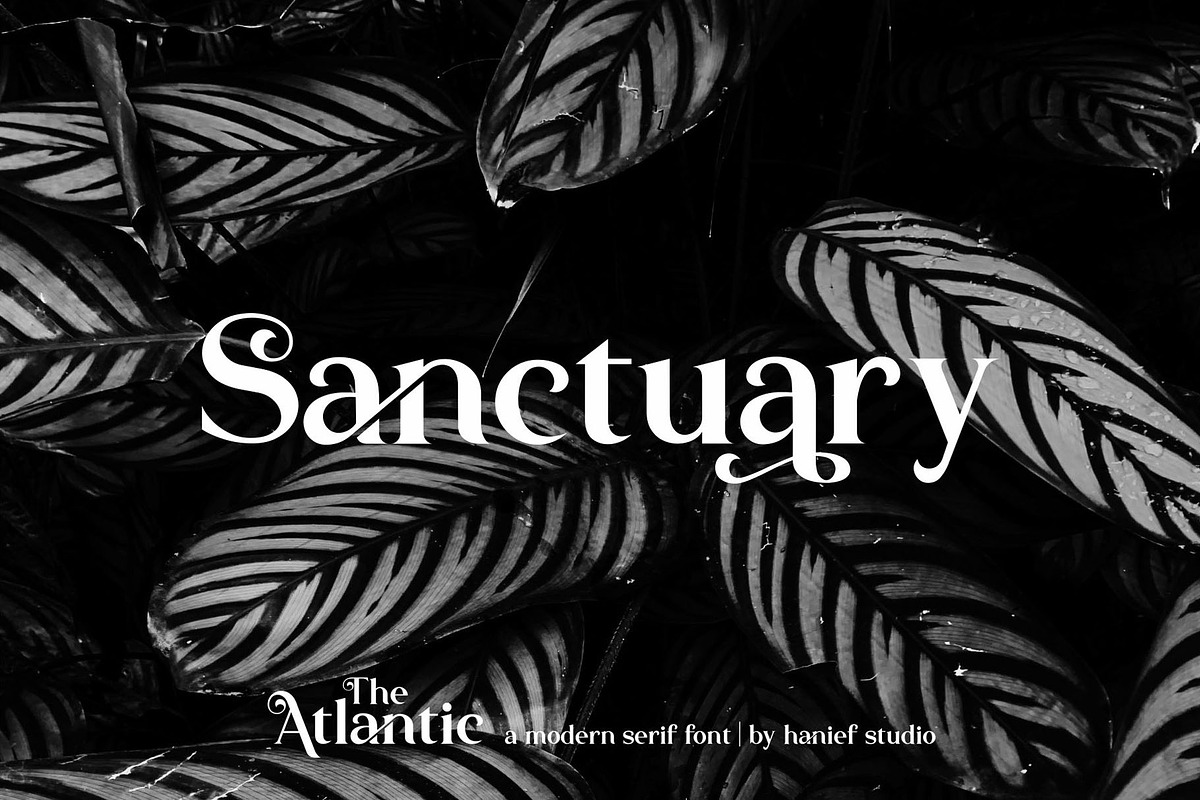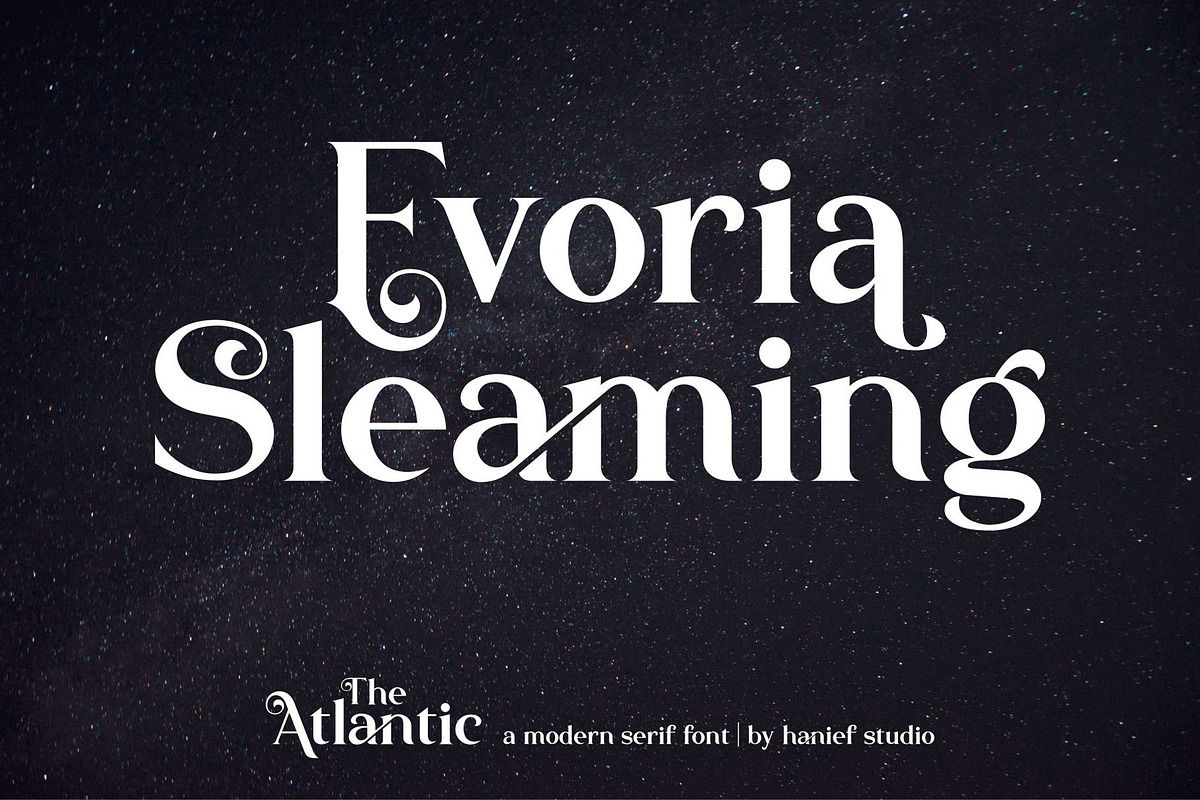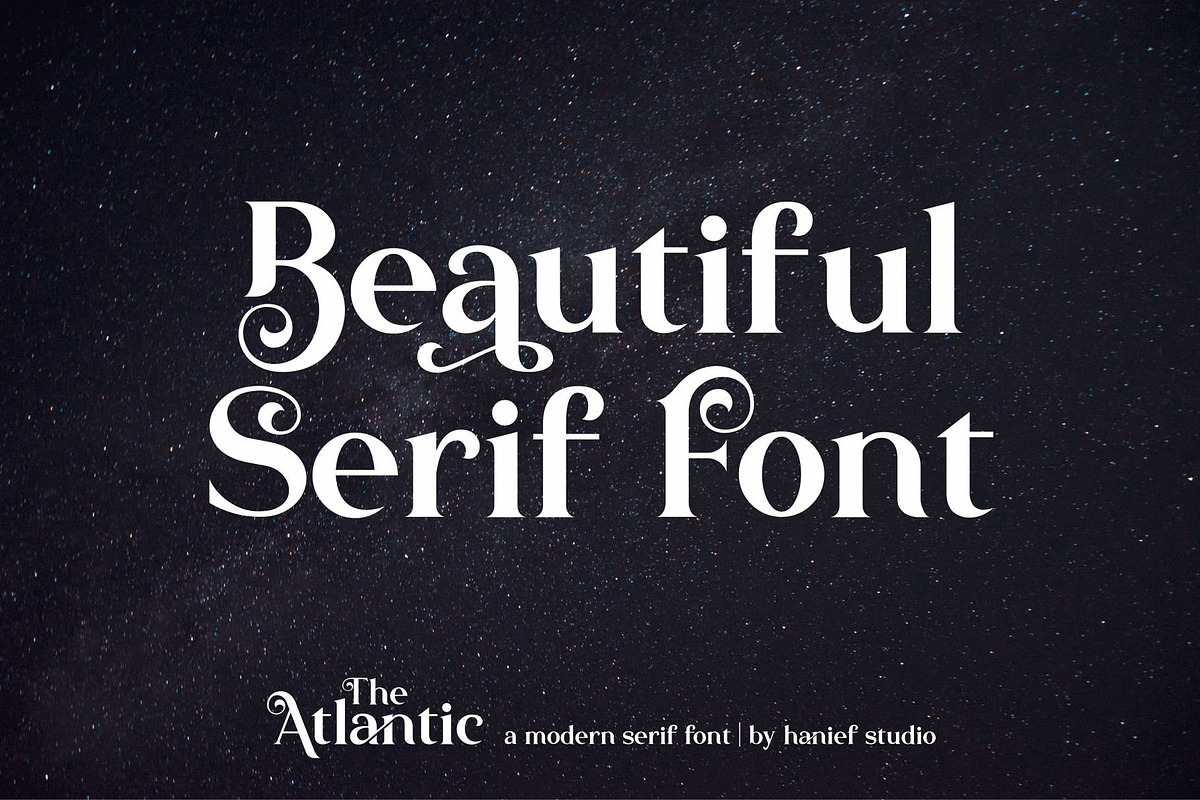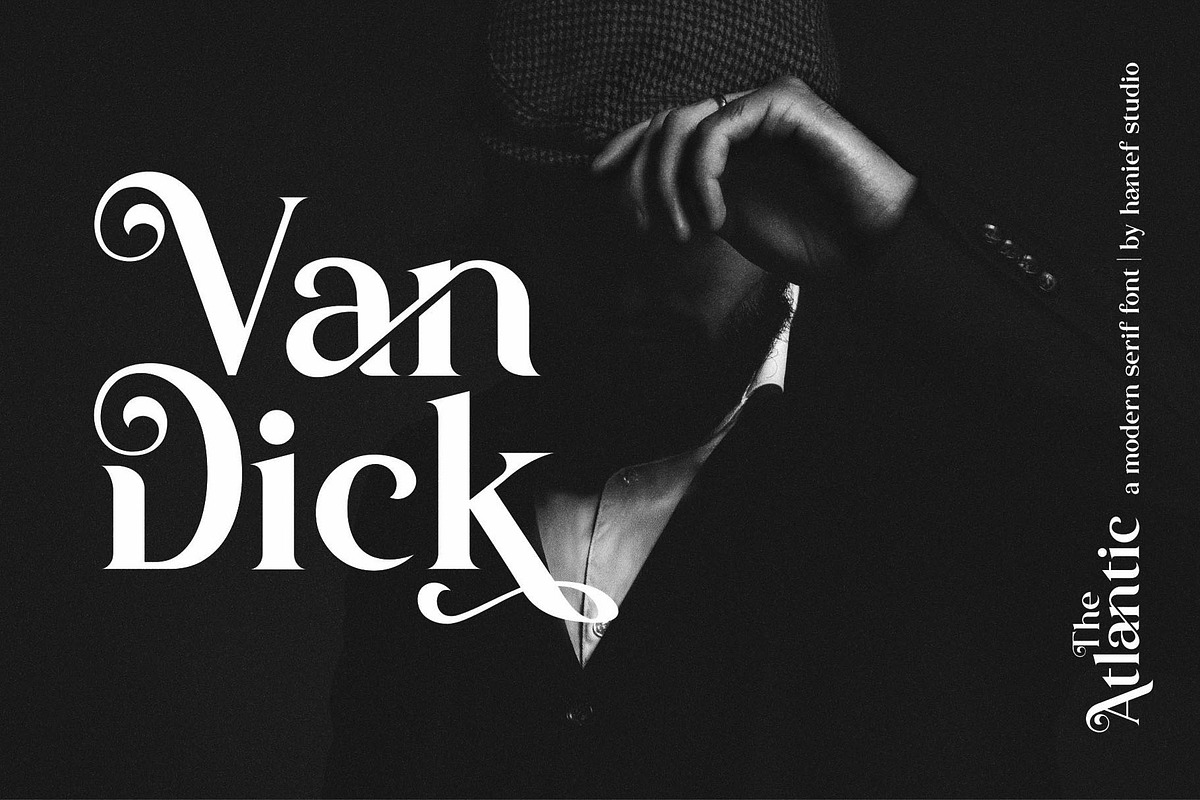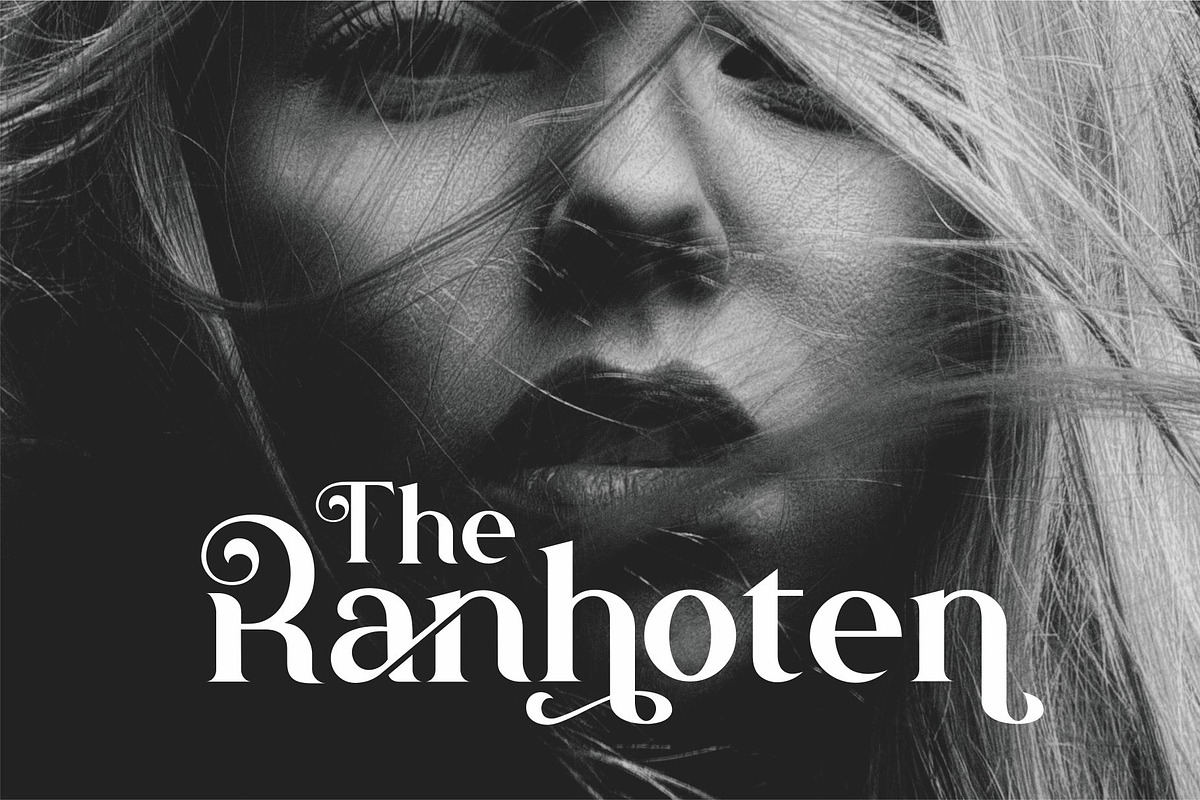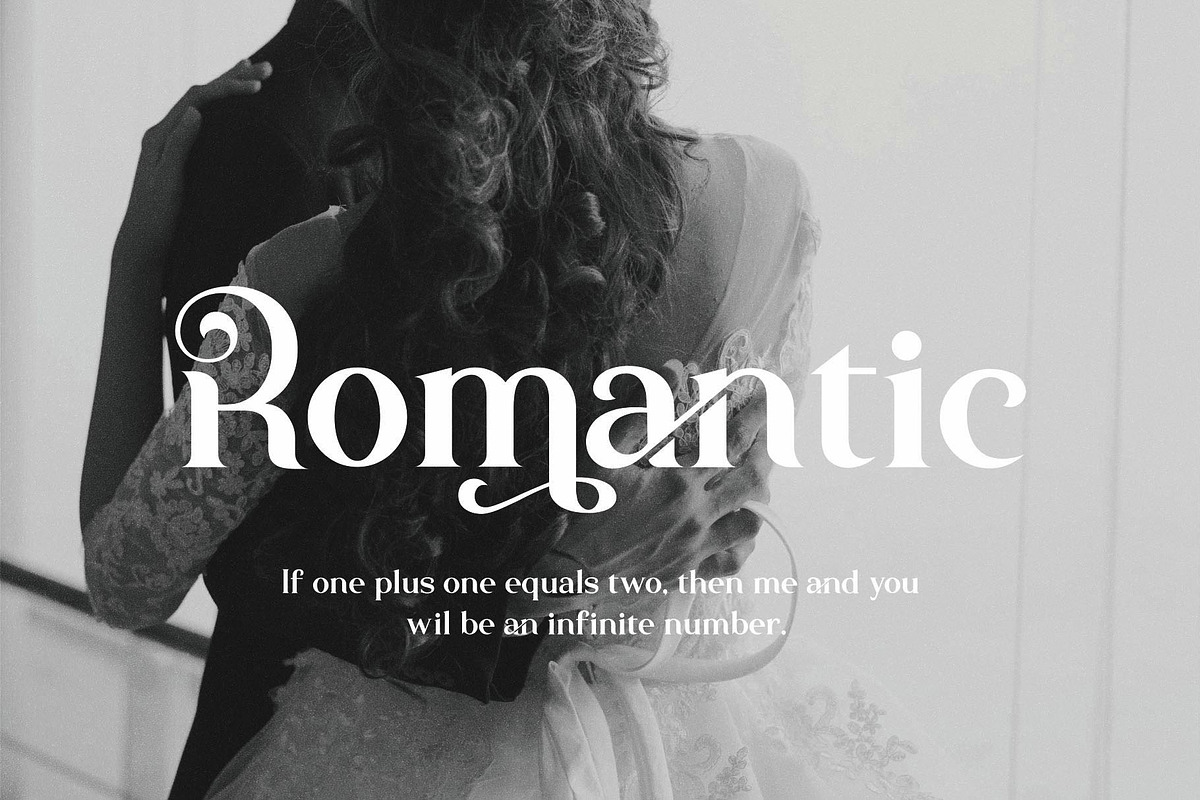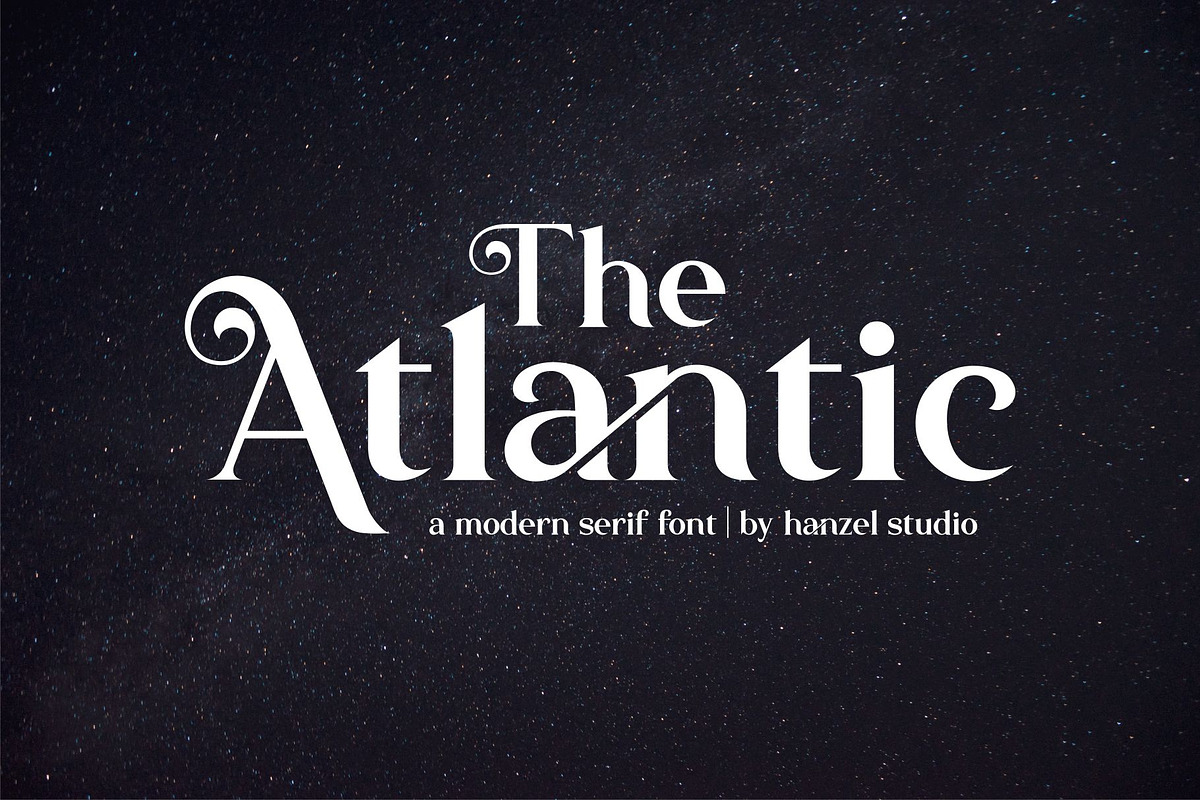
The Atlantic//Modern Serif Font
This modern serif typeface features serifs. Perfect for gorgeous logos & titles, The Atlantic will pair beautifully with many fonts and work well with whatever project you're working on.
Containing full set of punctuation and numerals
Include Alternate, Swash & stylistic set Typeface.
An broader version of the font for a The Atlantic different feel.
The Atlantic//Modern Serif Font by HanzelSpace Studio fits naturally into Branding, posters, packaging, typography.